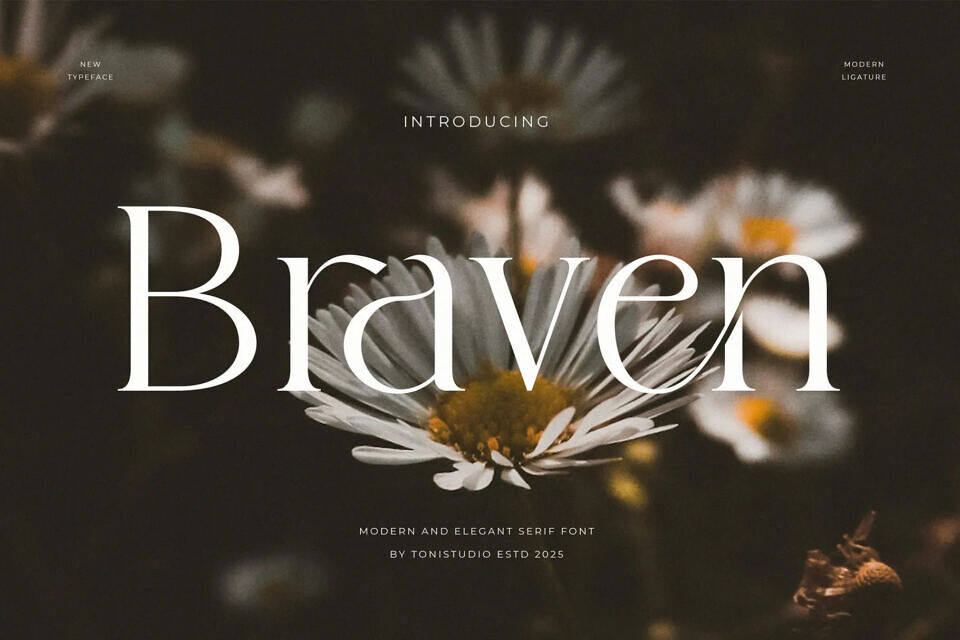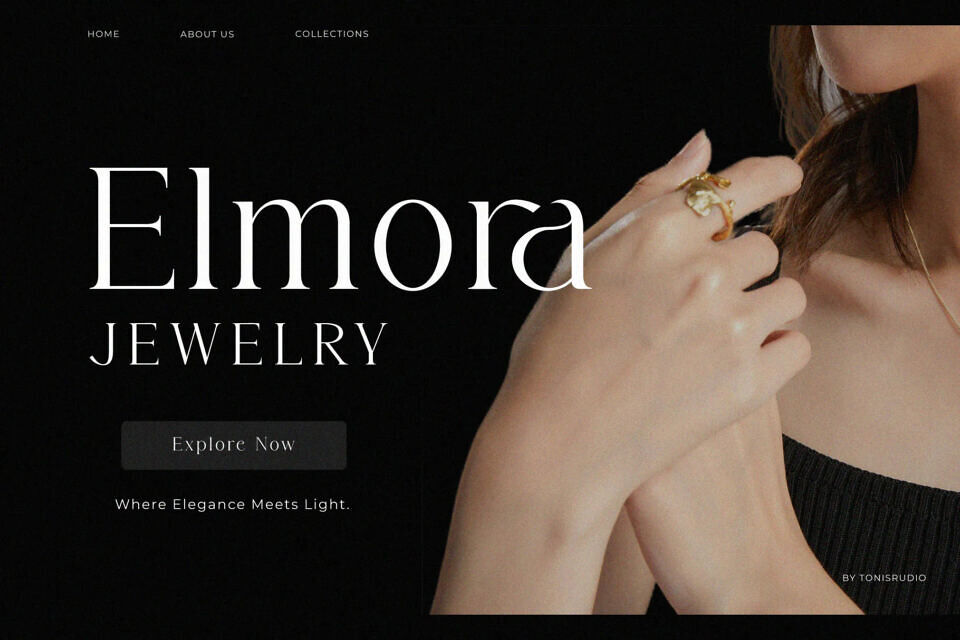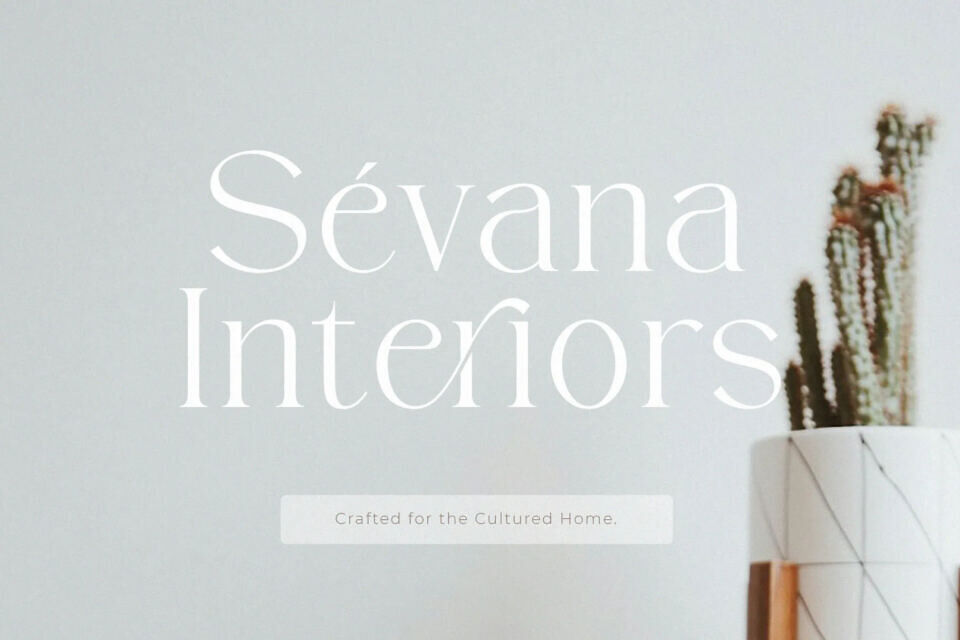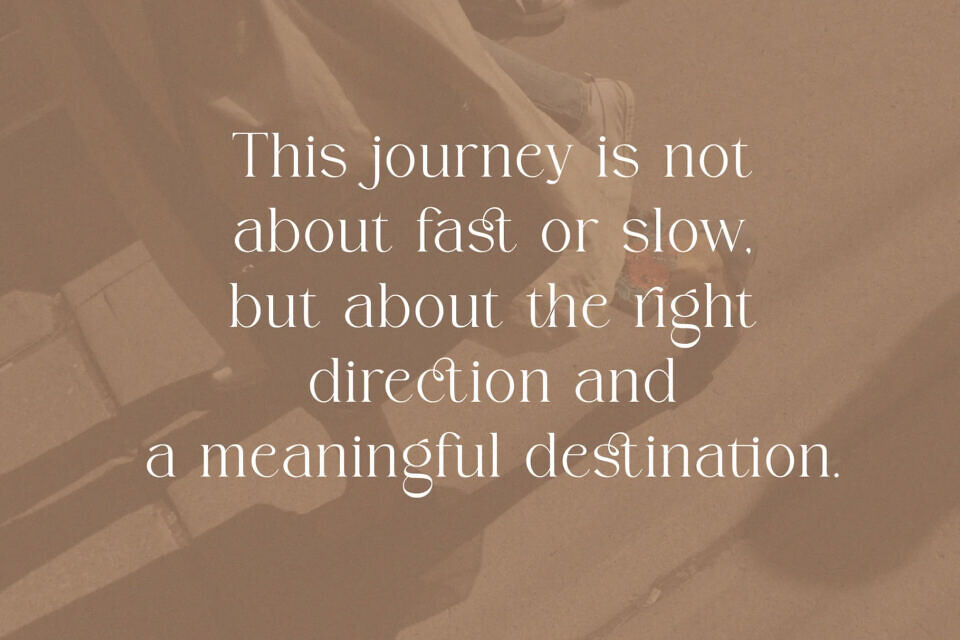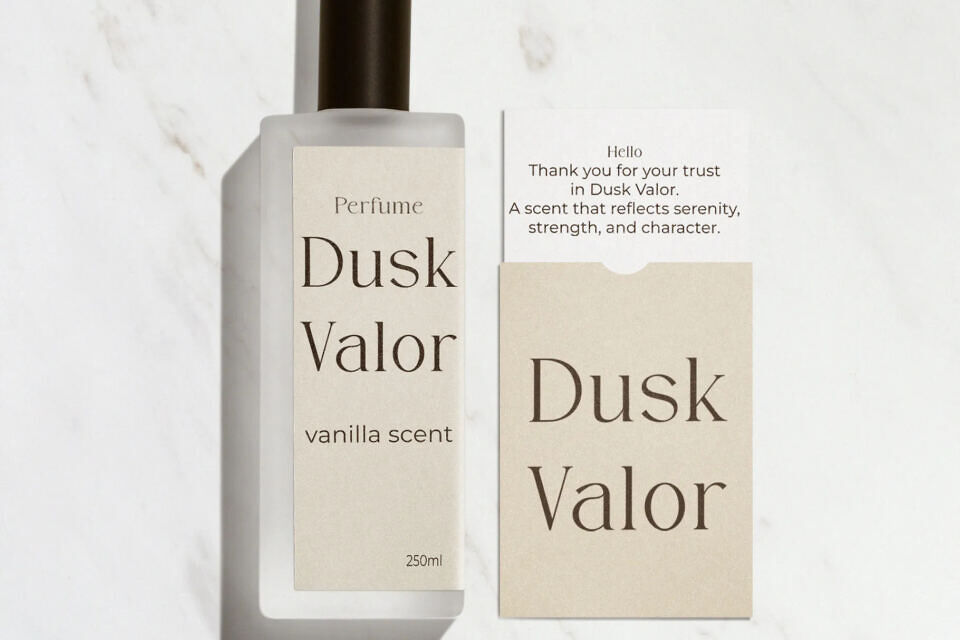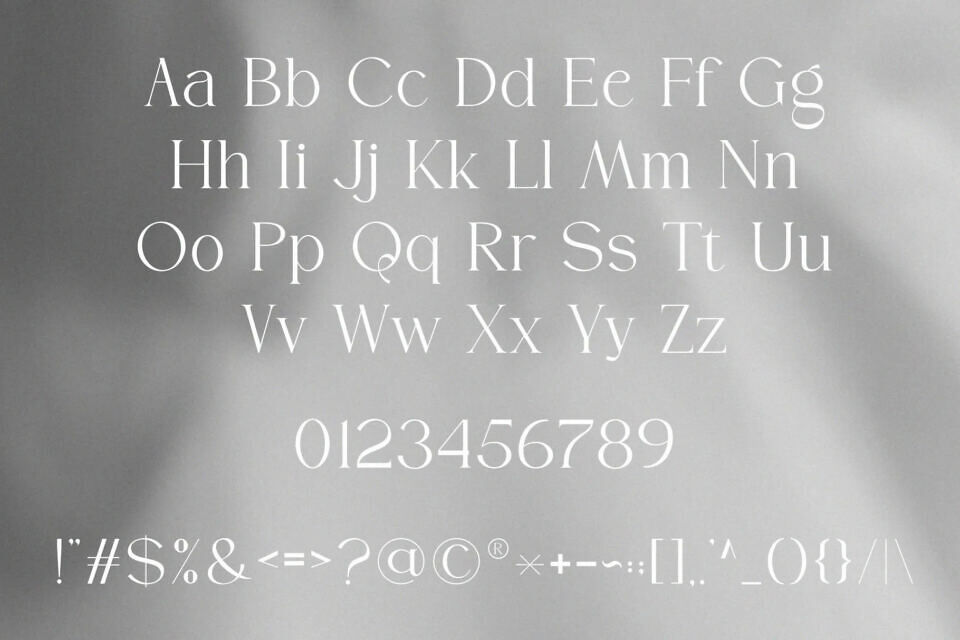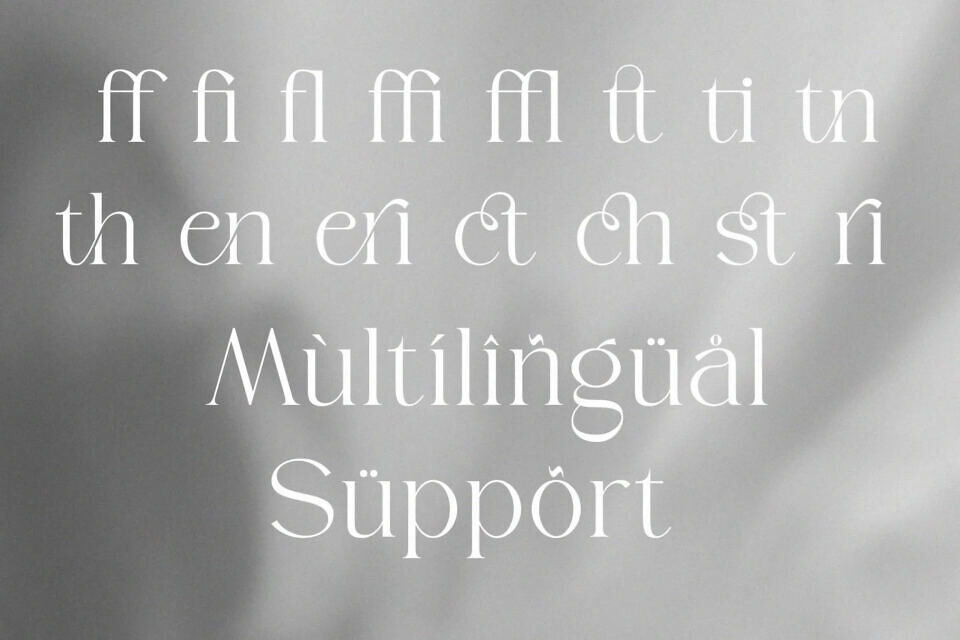
Braven is a bold serif typeface with a strong character, sharp elegance, and contemporary appeal. Designed for those who want to create high-impact visuals, Braven is perfect for branding, editorial headlines, logos, and packaging design.
With its confident serifs and precise details, Braven combines classic heritage with a fresh modern edge—making it suitable for masculine, professional, or premium lifestyle projects.